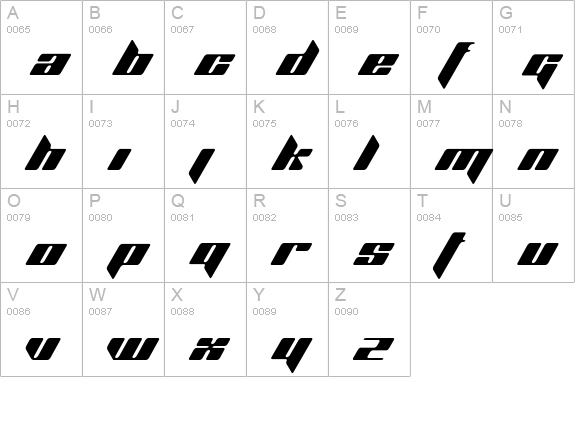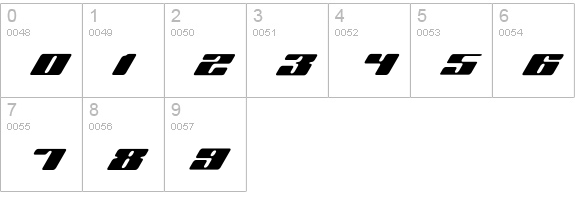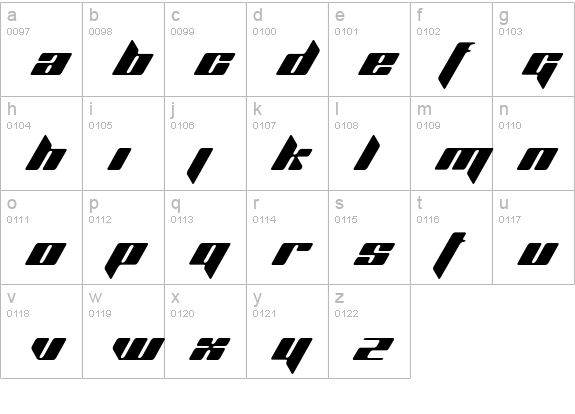
PlanetKosmos Font Details
PlanetKosmos is a stunning and versatile font that is sure to elevate any design project to new heights. With its unique and futuristic design, this font captures the essence of space exploration and cosmic beauty. The clean lines and sleek curves of each letter create a sense of elegance and sophistication, making it perfect for a wide range of applications. Whether you're designing a logo, creating a website, or crafting a poster, PlanetKosmos will add a touch of modernity and style to your work. Its bold and captivating presence commands attention and leaves a lasting impression on viewers. This font is truly a visual representation of the vastness and wonder of the universe. One of the best features of PlanetKosmos is that it is available free of charge. You can easily download this font without any restrictions or limitations at FontsMarket.com. This means that you can use it in both personal and commercial projects without worrying about breaking the bank. Don't miss out on this incredible opportunity to enhance your designs with the mesmerizing beauty of PlanetKosmos. Download it for free today at FontsMarket.com and let your creativity soar to new cosmic dimensions.